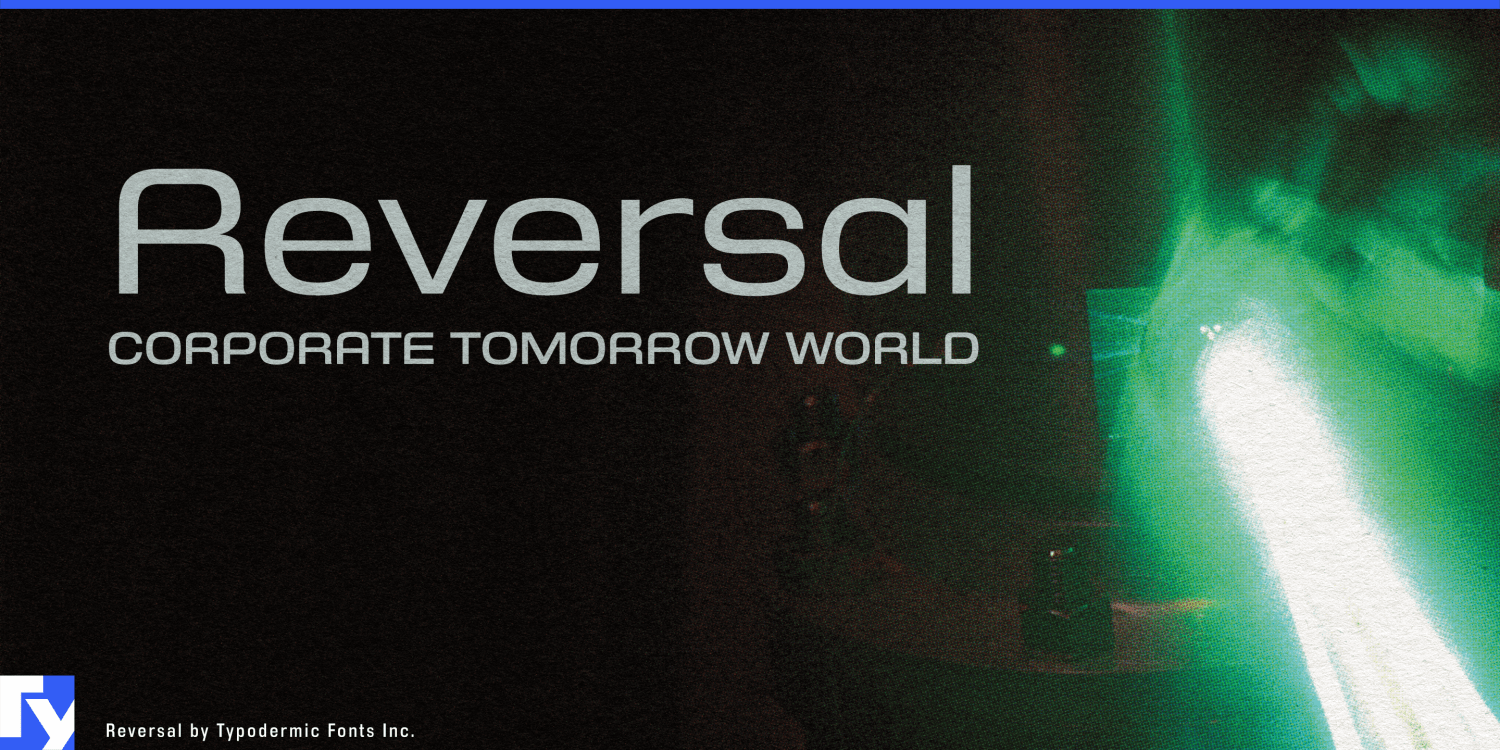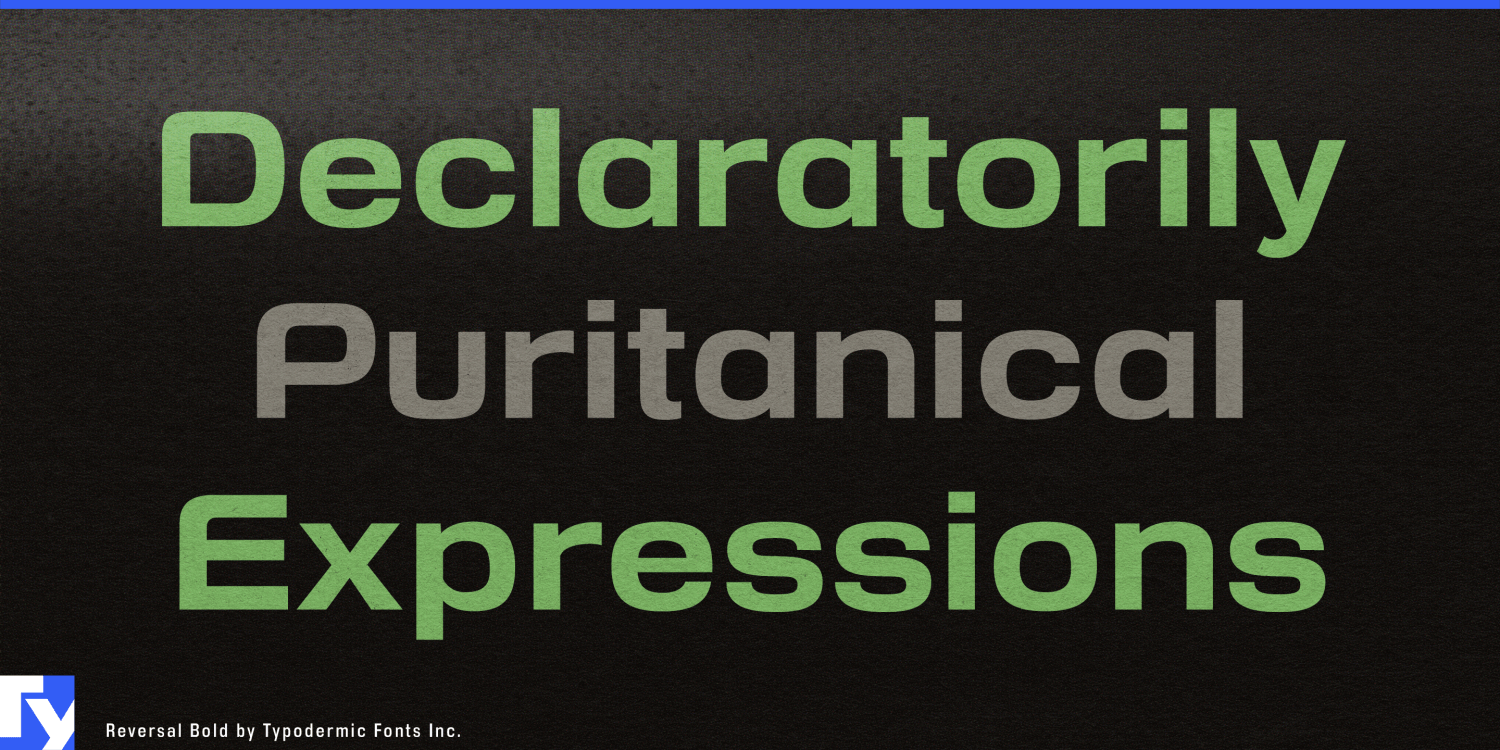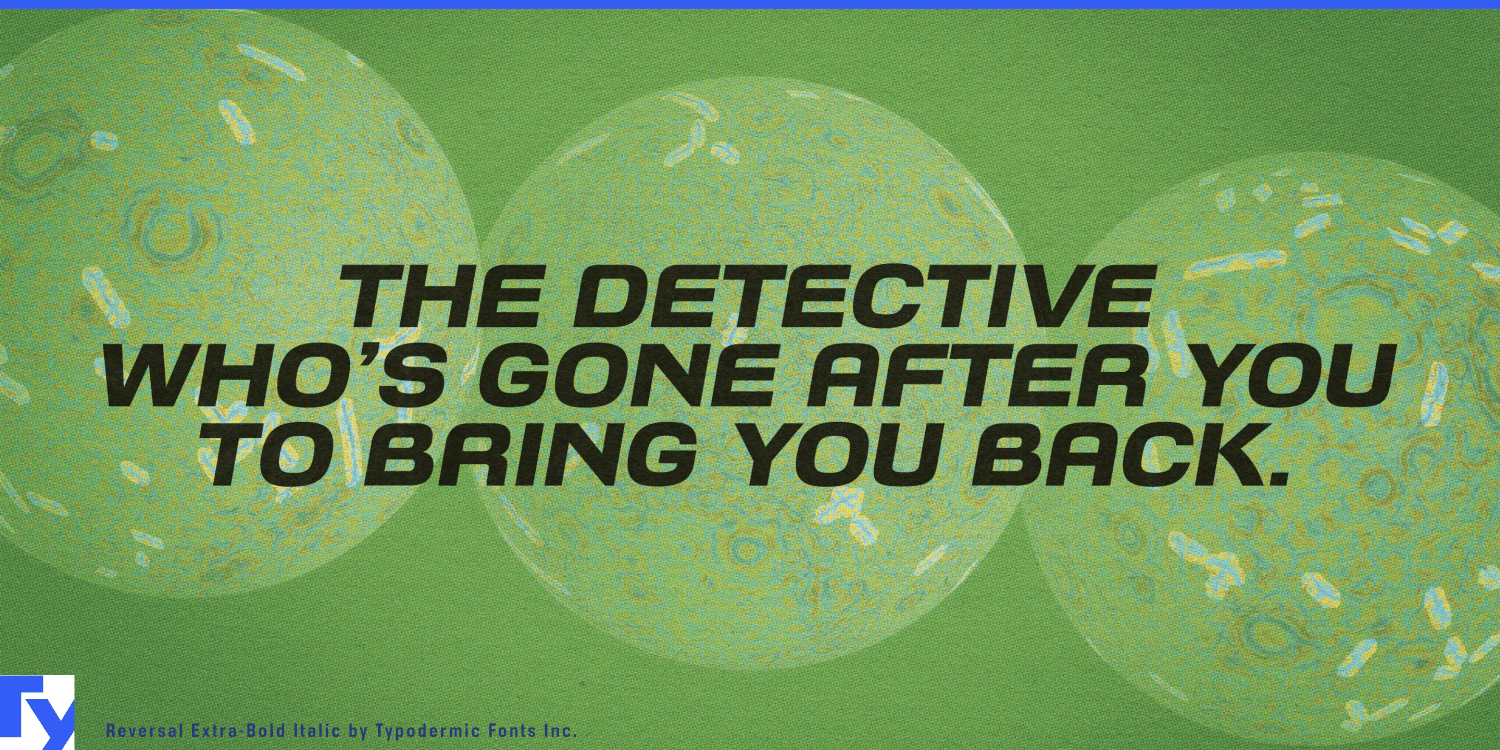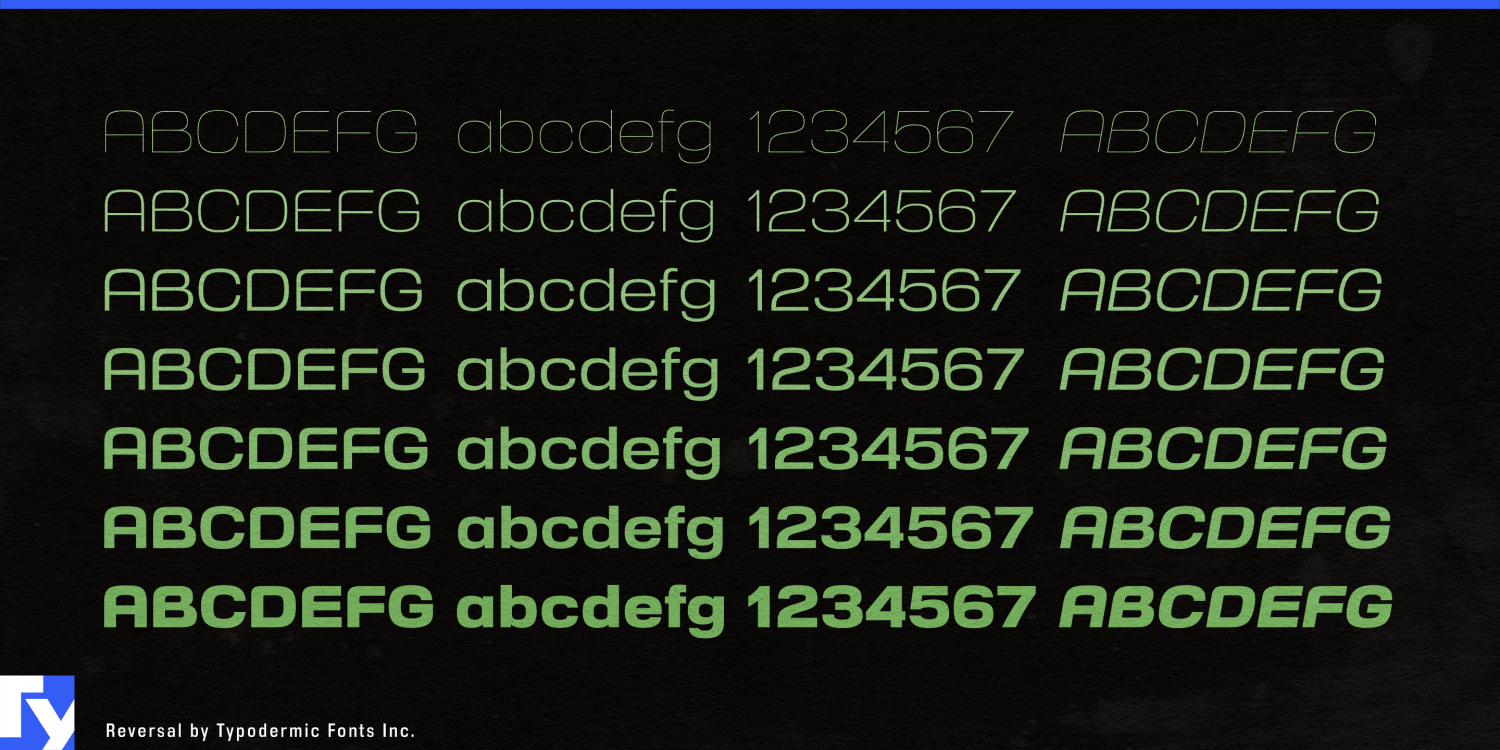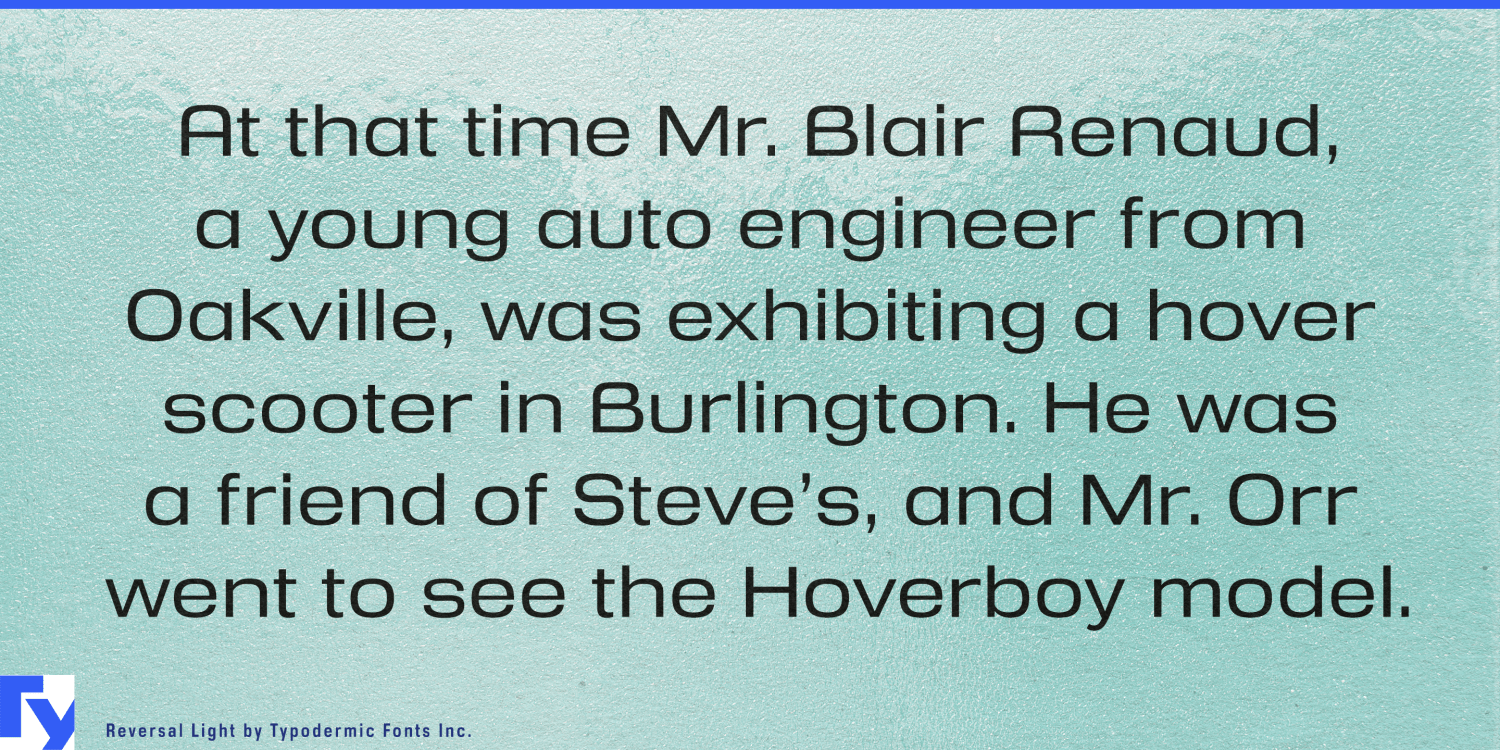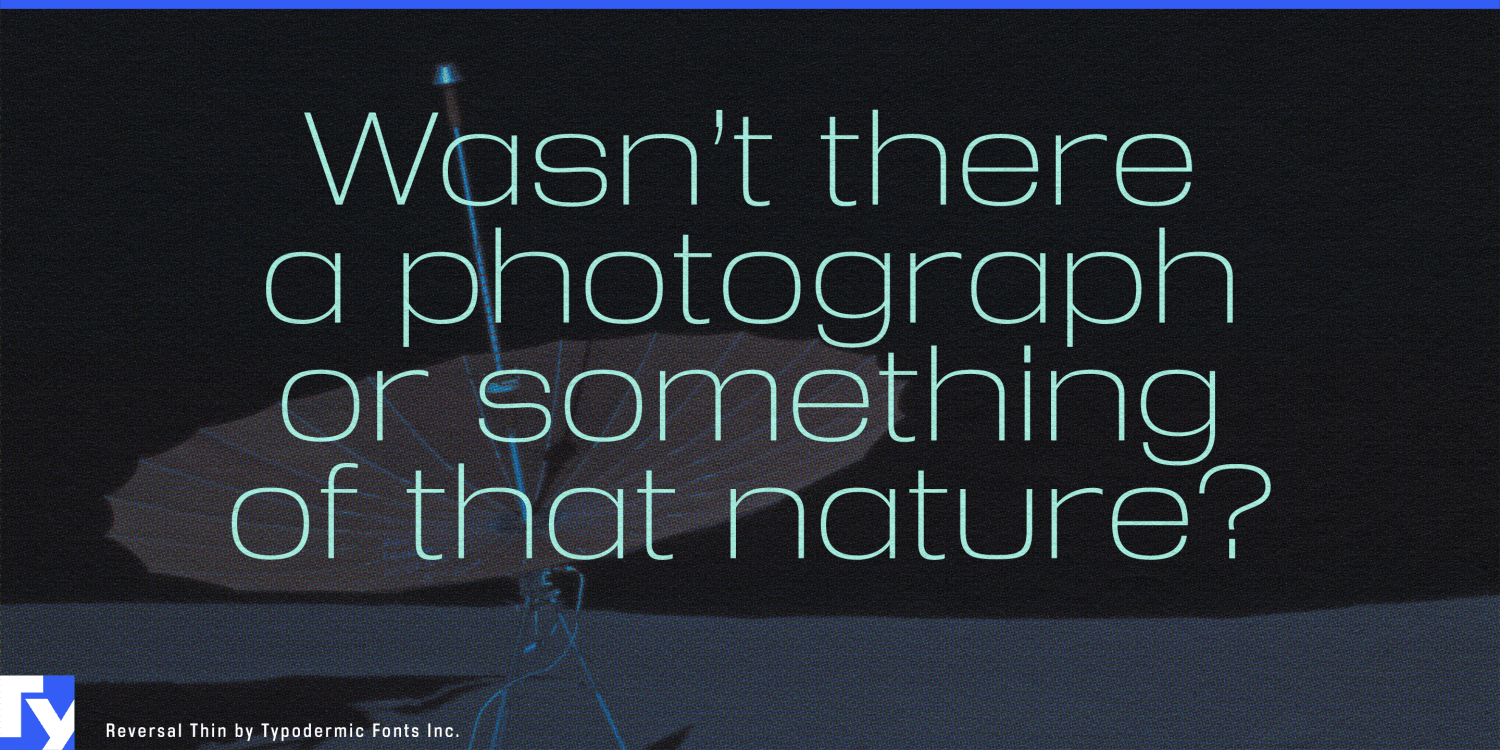
Reversal
Font Family by Typodermic
Compact products need compact typography, but narrow type often brings a harsher personality than the product itself. Condensed sans serifs can feel urgent or industrial; rounded faces are often too broad for tight physical and digital spaces. Reversal occupies the useful territory between them: space-efficient proportions with the softened geometry of contemporary consumer products.
Its condensed forms avoid the rigid pressure of many narrow grotesks. Squashed circular shapes and smooth construction give Reversal a streamlined, manufactured quality without relying on blades, cuts or overtly futuristic details. Seven weights from Hairline through Extra-Bold, each with an italic, let the family move from light technical headings to substantial product names while preserving the same compact structure.
Urban mobility is a natural setting. Compact EVs, e-bikes, electric scooters and autonomous shuttles all have limited space for model names, service graphics and interface headings, yet their identities extend into apps, charging points and rental systems. Reversal can keep those physical and digital touchpoints related without making approachable mobility products look like heavy machinery.
Service robotics presents a similar problem. Delivery robots, cleaning robots, hospitality machines and autonomous logistics equipment need to look technologically capable without becoming militarized or toy-like. Reversal can handle product-family names, fleet identifiers, launch graphics and short interface headings while a quieter companion face carries dense instructions and operational data.
Wearable monitors, home diagnostic devices, rehabilitation products and other personal health technology can use the same balance. Reversal moves comfortably between device names, packaging, companion apps and campaign graphics where space is limited but the visual language still needs to feel considered and approachable.
Reversal is useful because it saves horizontal space without making the design feel severe. For compact mobility, service robotics and personal devices that need to look engineered without looking aggressive, that balance gives the family its role.